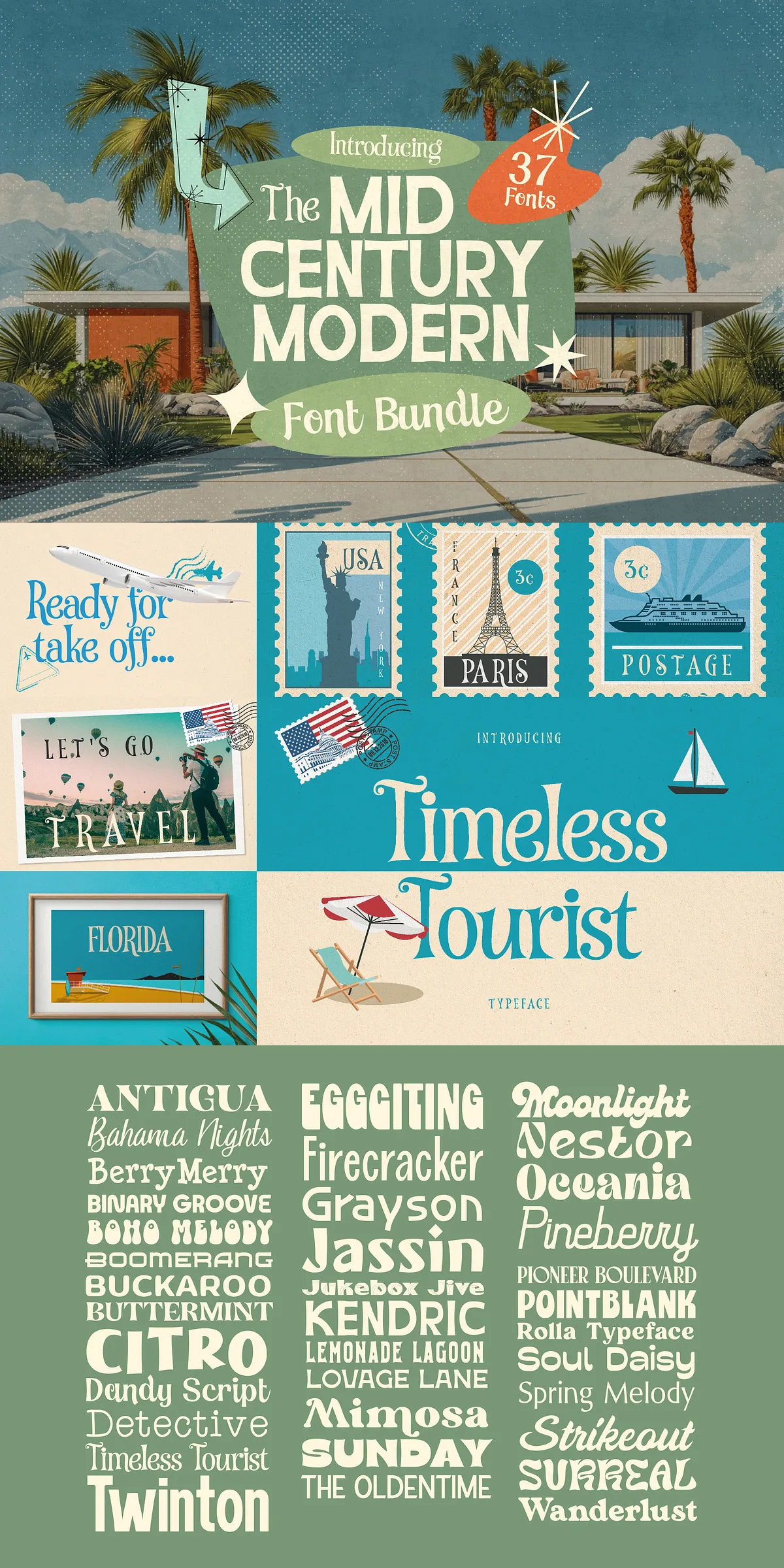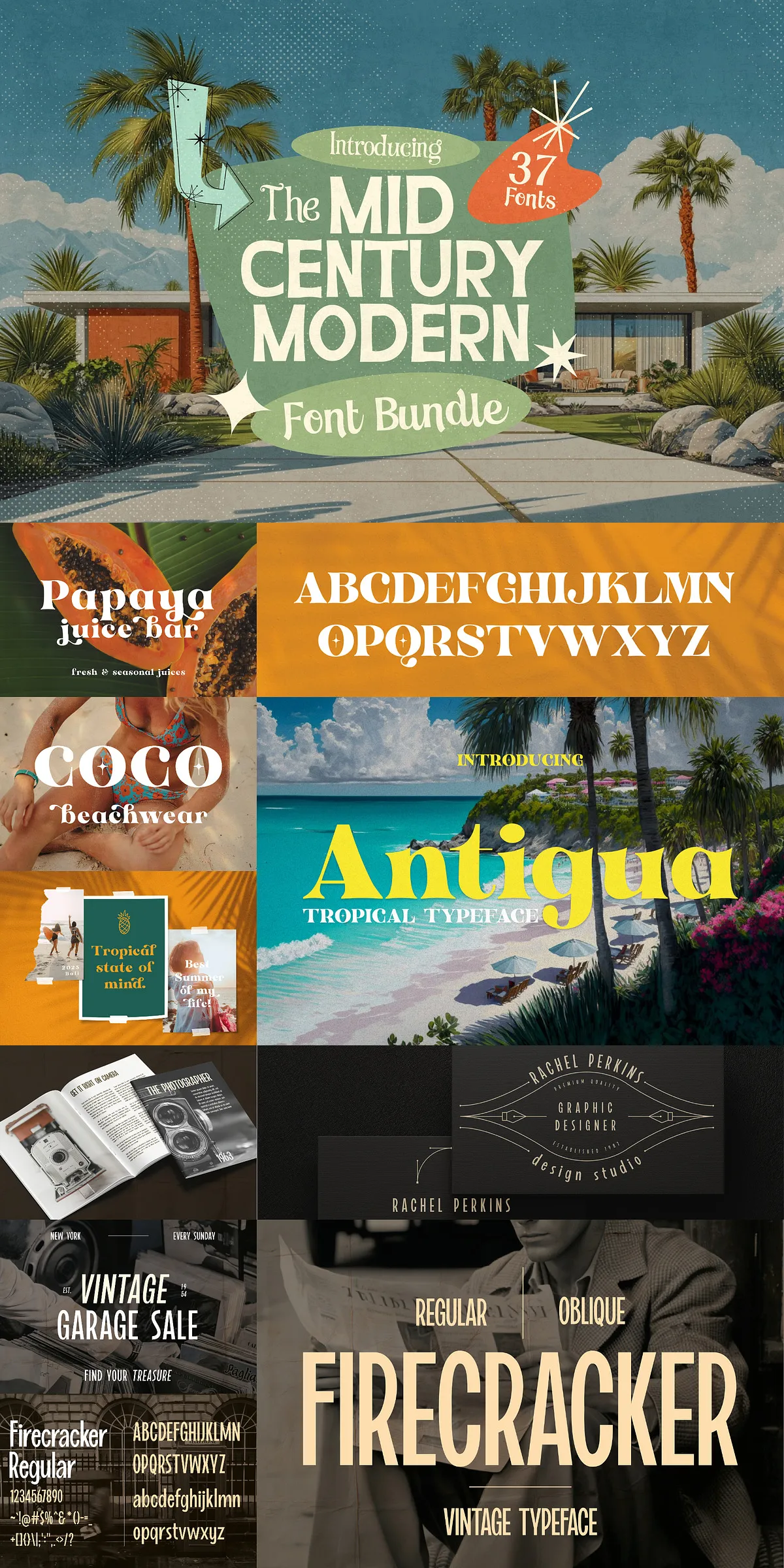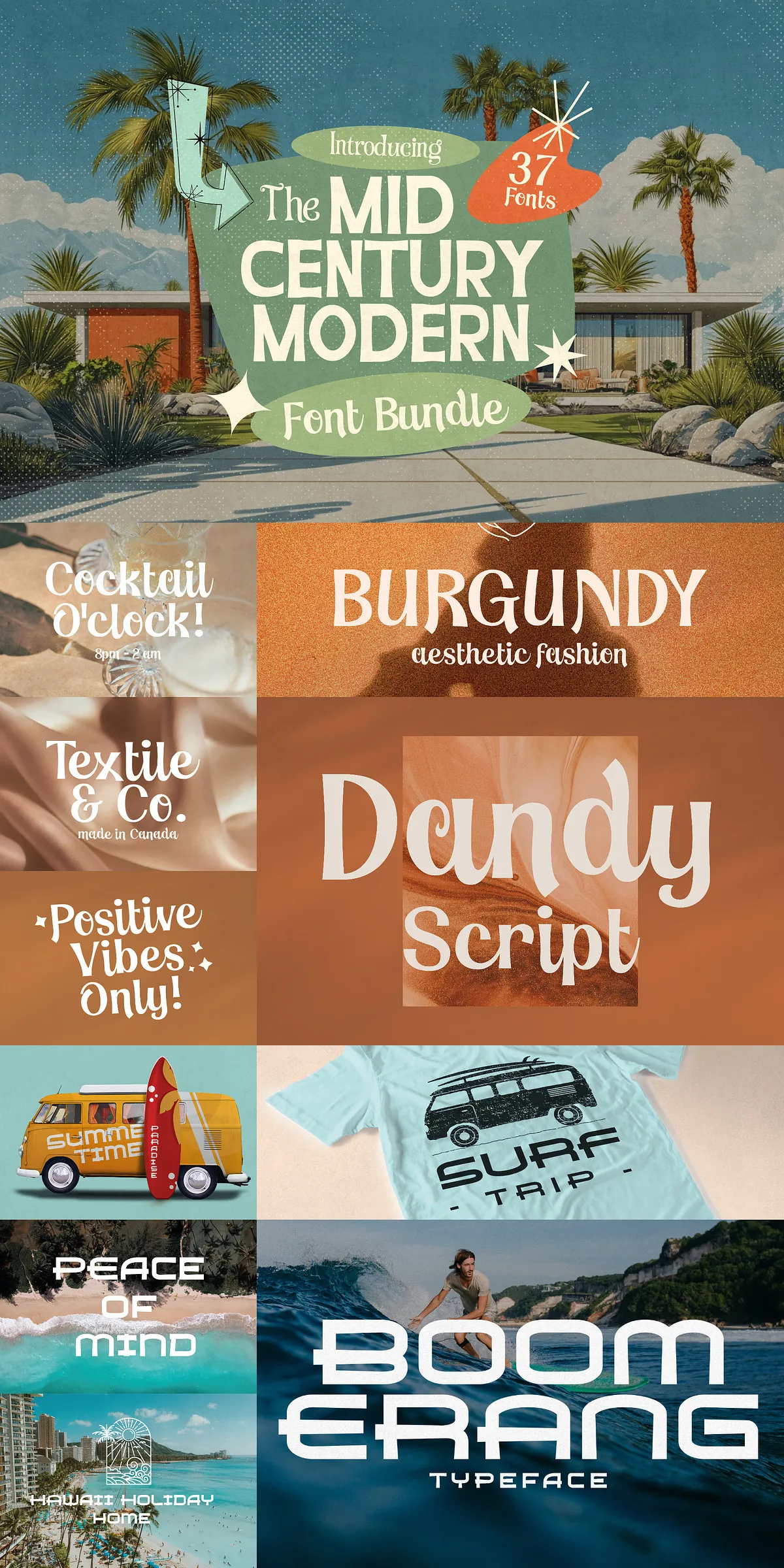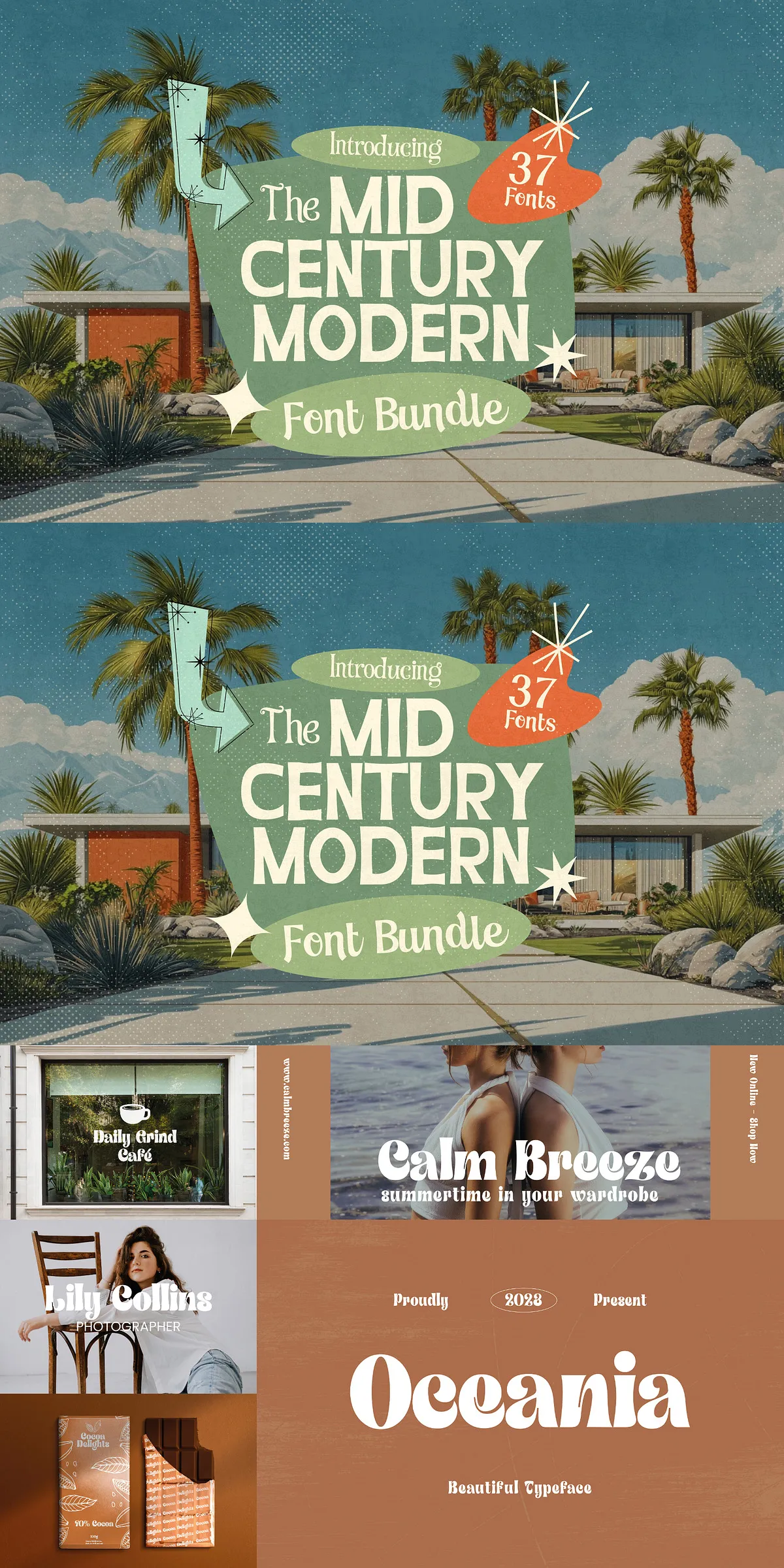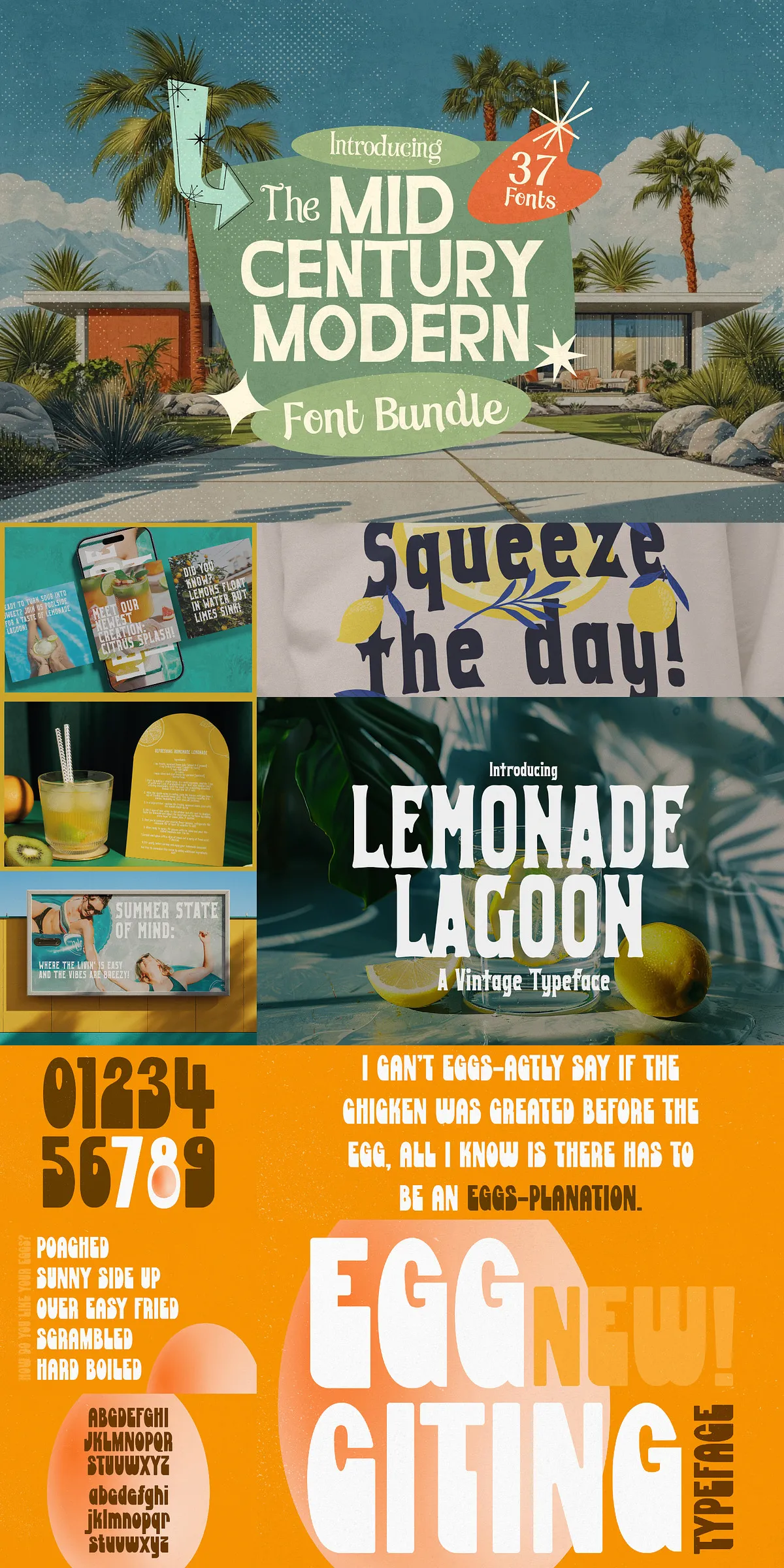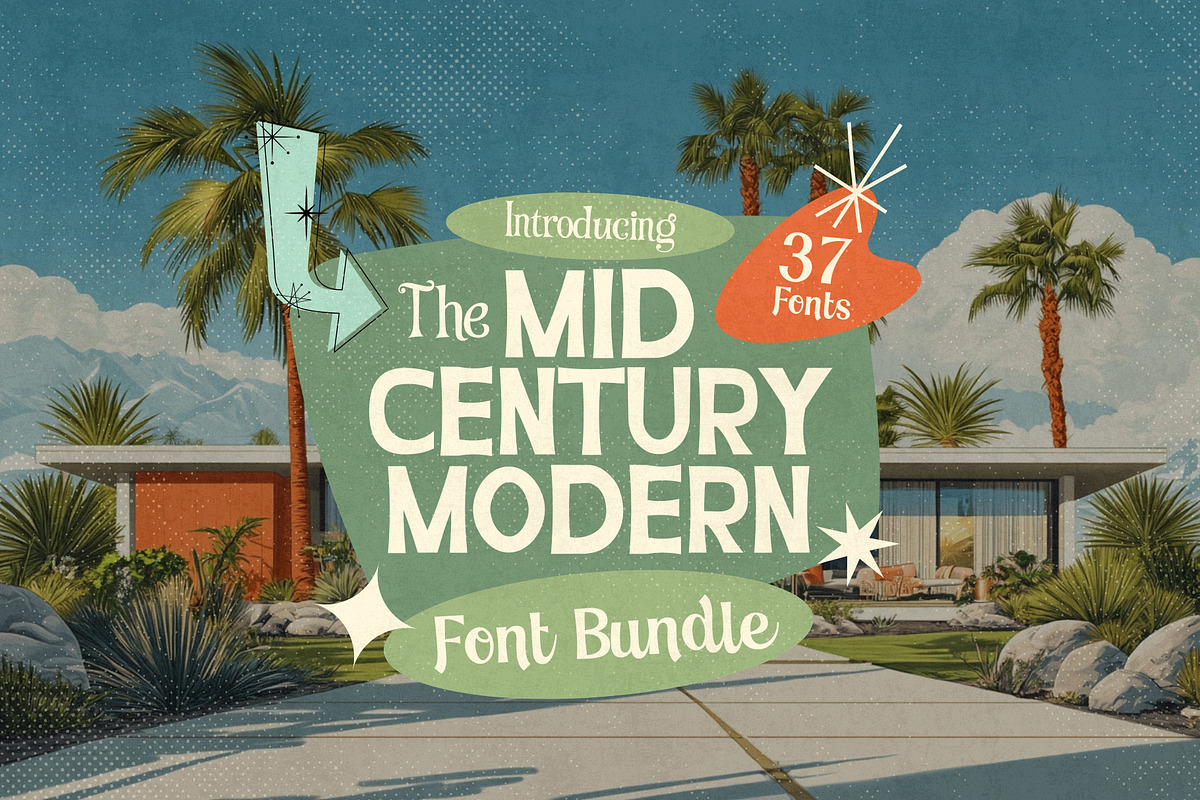
Step back into the golden age of graphic design with the Mid-Century Modern Font Bundle. This curated collection delivers 37 handpicked typefaces that channel the sleek, stylish, and playful spirit of the 1950s and 1960s. Each font actively captures elements drawn from diner signage, magazine mastheads, cocktail lounge menus, Googie architecture, and atomic-age advertising. Designers gain an efficient toolkit that speeds creative decisions while producing authentic period-accurate results.
The bundle includes a diverse selection of type styles: elegant scripts, quirky hand-drawn lettering, bold display faces, refined sans-serifs, and decorative accents that nod to mid-century motifs. You receive complete font files suitable for print and web use, including OpenType and web font formats. The collection emphasizes both visual authenticity and modern technical reliability—each typeface renders cleanly at large display sizes while maintaining legibility for headings and short blocks of copy.
Designers will appreciate the time saved by having a matched set of complementary fonts. The bundle encourages cohesive systems: pair a warm script with a geometric sans for packaging, or combine a bold display face with a clean body font for posters and album art. The variety supports branding, packaging, logos, editorial layouts, album covers, book jackets, signage, and product labels—every project that benefits from retro personality and confident typographic voice.
Designers choose this bundle because it produces instant nostalgia without sacrificing polish. These fonts deliver character and readability simultaneously. They respond well to treatment—colored fills, vintage textures, letterpress effects, and contemporary color palettes all enhance the mid-century vibe. The typefaces also include alternate glyphs, ligatures, and stylistic sets where applicable, empowering you to craft distinctive logotypes and custom headlines quickly.
Apply the fonts across a wide range of creative outputs. Use bold display faces for posters, hero headlines, and event promotions; pair scripts with sans-serifs for branding systems and restaurant menus; deploy decorative fonts for product packaging and label work. Editorial designers can recreate magazine spreads and retro-inspired layouts, while UI and web designers can bring vintage flair to landing pages and promotional microsites using web font formats. The bundle supports both printed collateral and digital campaigns.
Begin each project by selecting two or three complementary fonts: one display face for titles, a supporting serif or sans for subheads, and a neutral text face for body copy. Exploit alternates and stylistic sets sparingly to keep readability high while adding visual interest. For print production, convert critical text to outlines only for final presses when necessary; for web use, implement WOFF/WOFF2 versions and use font-display strategies to minimize layout shift. Test letterspacing and kerning at display sizes to preserve the period look without losing clarity.